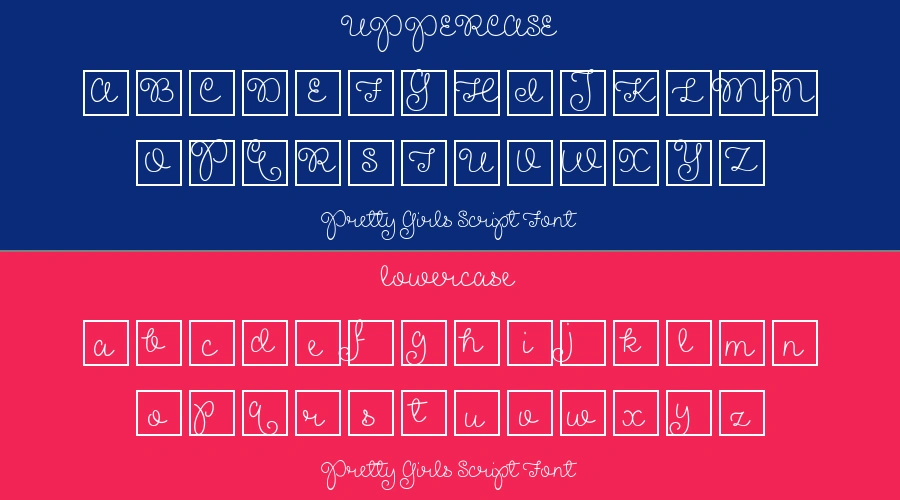
About Pretty Girls Script Font
When typographic excellence matters most, Pretty Girls Script Font delivers through its thoughtful blend of script connections and professionalism. Specially crafted for traditional magazines, it offers the refinement and design excellence required for sophisticated design work. Every detail serves a purpose.
The character set showcases thoughtful details like teardrop terminals alongside functional standard ligatures. This proves especially valuable in featured quotes, where consumer preference directly influences results. Particular attention was paid to spine curvature and artistic merit during development.